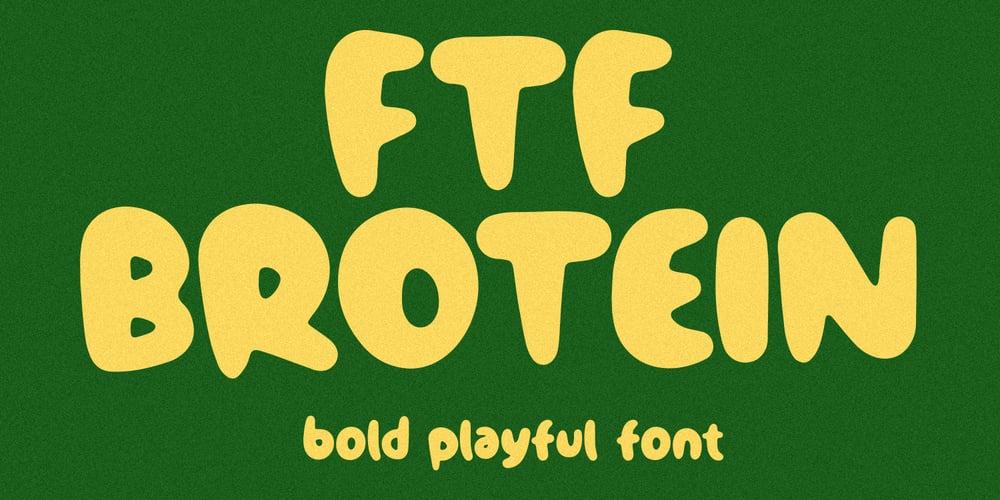
FTF Brotein Font Family was designed by ANGGI HERMAWAN and published by Forberas Club. FTF Brotein contains 1 styles and family package options. FTF Brotein is a Handwritten font that will make your designs look Powerful, Playful, Bold, and good. It is a great font for events, Wedding Project, signature, album covers, logos, branding, magazines, social media posts, advertisements, but it also works great for other projects. Add it to your fonts’ library, and it will enhance your creativity!